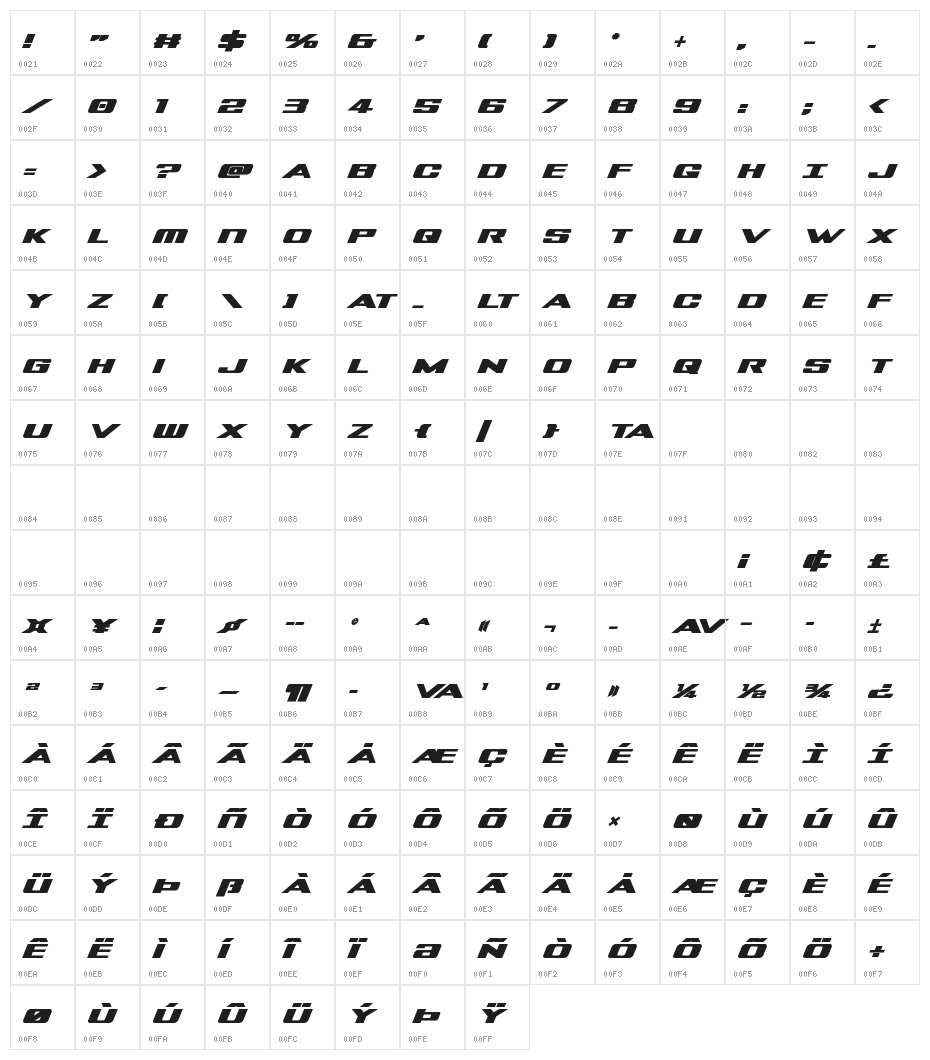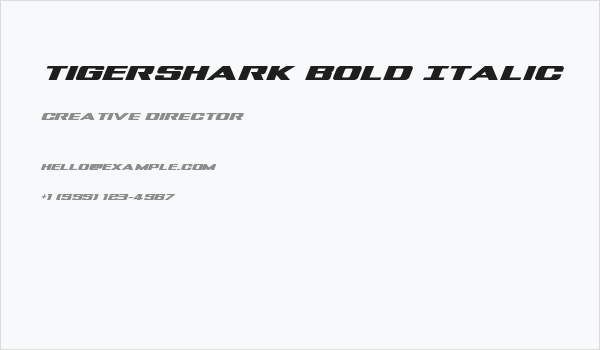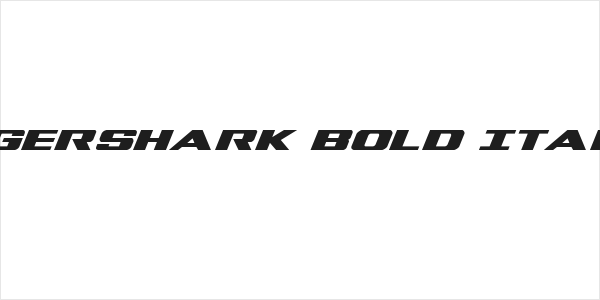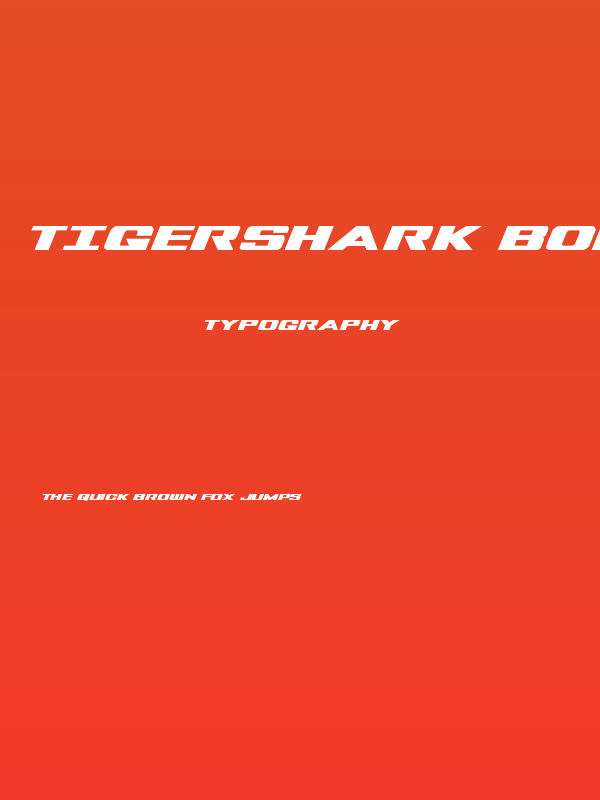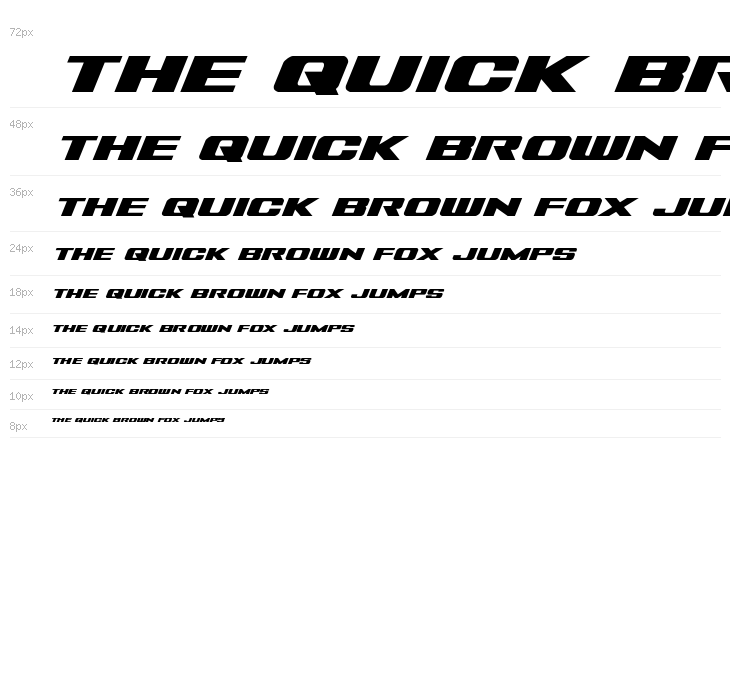
Tigershark Bold Italic Font
Tigershark Bold Italic Description
This font features a bold and italicized style with a strong, dynamic presence. The letters are slanted, giving a sense of motion and speed, which is further emphasized by the thick, solid strokes. The design is modern and aggressive, suitable for making a statement. The uppercase and lowercase characters maintain a consistent style, while the numerals and special characters complement the overall aesthetic. The font's boldness and italic nature make it ideal for attention-grabbing headlines and impactful designs.
| Proposed Projects | Ideal for sports branding, automotive designs, dynamic posters, and any project requiring a strong, modern impact. |